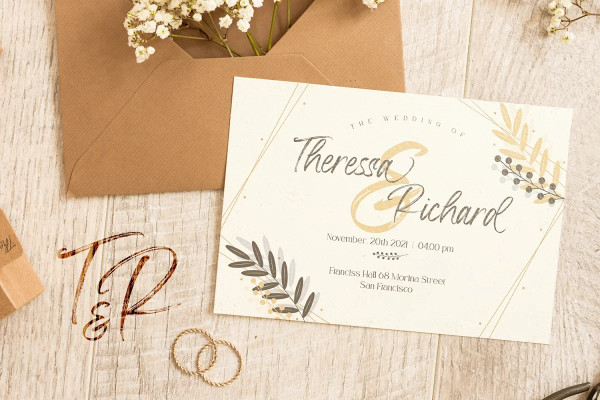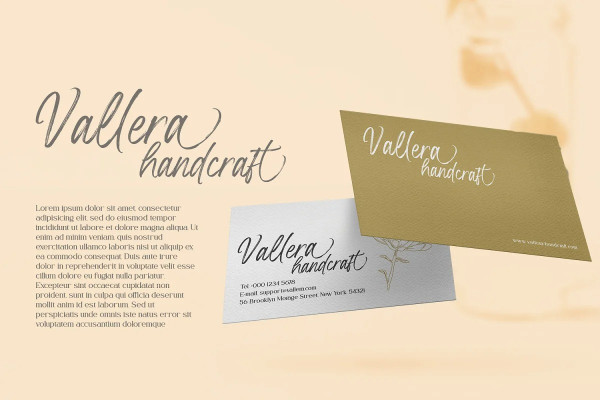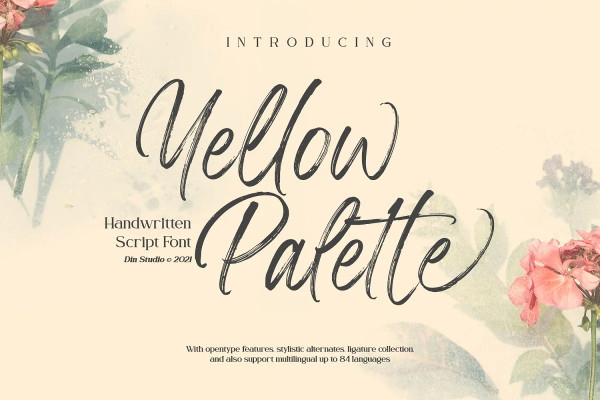
Yellow Palette Font
Yellow Palette Font is a gorgeous font, designed with a modern vibe. This handwritten font is perfect for anything adventurous, and direct. Every stroke and curve was created to entice happiness and elegance. A real head-turner for your presentation, designs, branding, quotes, invitation, website illustrations, and much more.
Our font always includes Multilingual Support to make your branding reach a global audience. Inspire your audience, clients, or guests with this beautiful, statement font.
It is perfect to be used for many design projects, such as poster, logo, book cover, branding, heading, printed product, merchandise, quotes, social media campaign, etc. Learn more about how to use it by seeing the font preview.